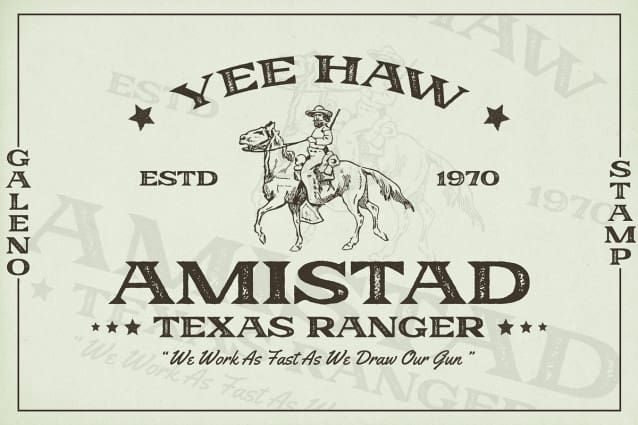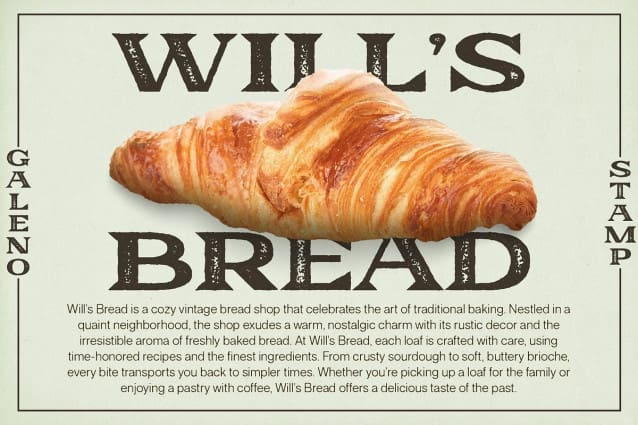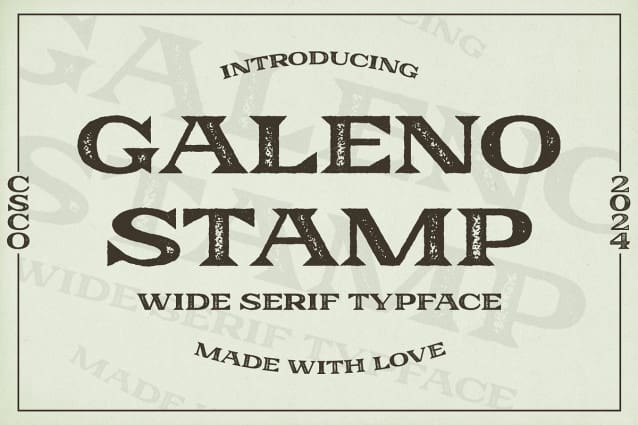
Galeno Stamp Font
Galeno Stamp Font is a serif font that features an expanded shape combined with a distinctive stamp effect. The wide, elegant letterforms offer a refined and classic appearance, while the stamp effect adds a rough, uneven texture, evoking the charm of old-fashioned printing techniques.
Vintage Texture for a Classic Look The rough, uneven texture introduced by the stamp effect gives Galeno Stamp a vintage feel, reminiscent of traditional stamps and retro printing methods. This unique combination infuses the font with a nostalgic quality, making it perfect for designs that aim to capture the essence of the past.
Ideal for Retro and Classic Designs Ideal for retro branding, posters, and promotional materials, Galeno Stamp brings a classic style and unique character to any project. Its expanded shape and vintage texture work together to create a strong, nostalgic impact, perfect for highlighting a timeless aesthetic.
Versatile for Classic and Nostalgic Projects Galeno Stamp’s elegant serif design and rough stamp effect make it versatile for various creative applications. Whether you’re crafting retro branding or creating eye-catching posters, this font delivers a blend of elegance and nostalgia, ensuring your designs stand out with a distinctive classic flair.